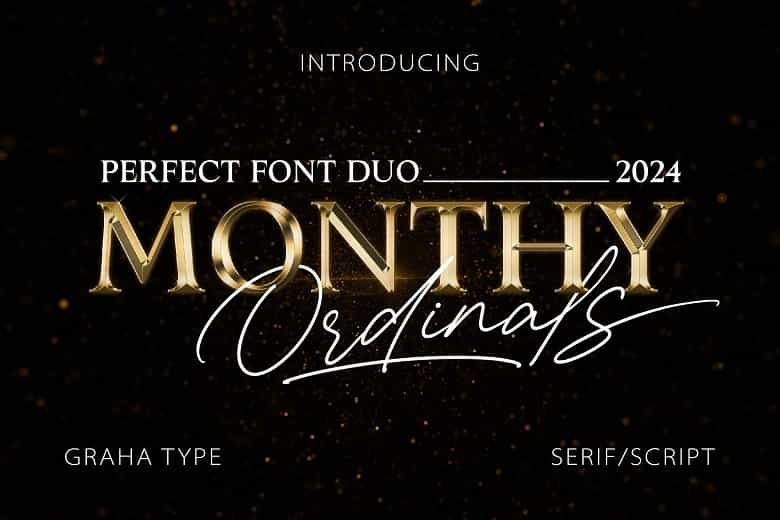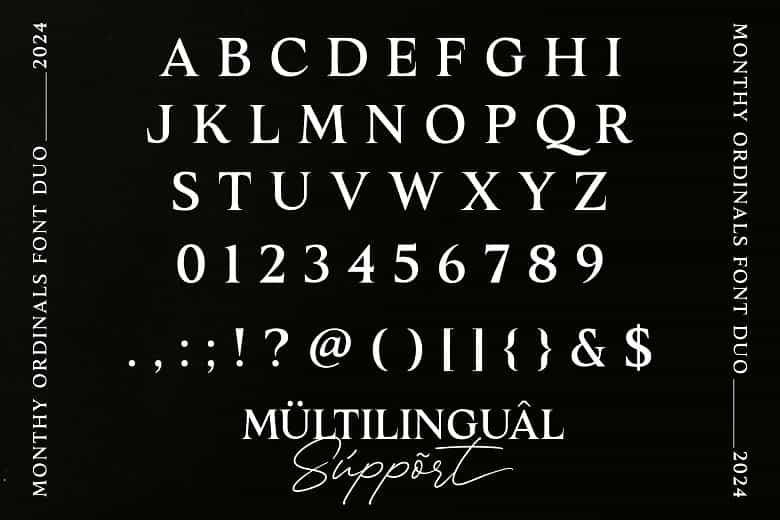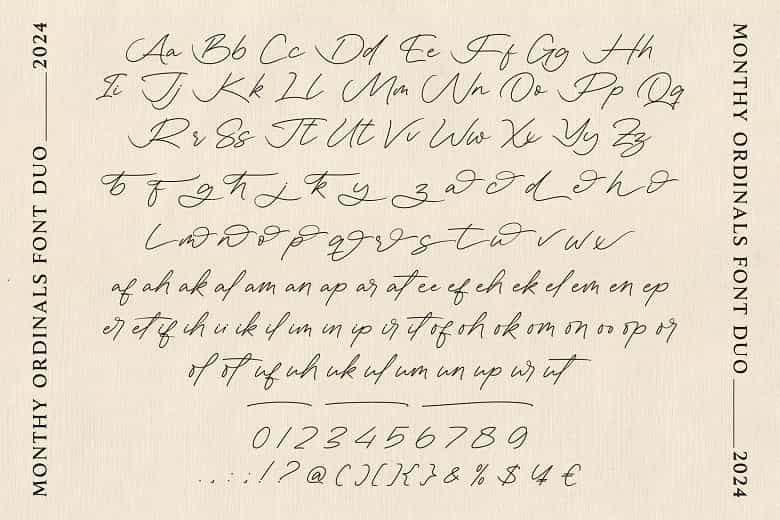
Monthy Ordinals Font Duo
Discover Monthy Ordinals Font Duo, part of the   Handwritten  Serif collection—a versatile and unique font perfect for adding a personal touch to your projects. Download it for free and enjoy crafting designs with style, from invitations to social media posts. This font is available exclusively for personal use, giving you the freedom to create without limits. Unlock your creativity with Monthy Ordinals Font Duo today!
Monthy Ordinals is a splendid script and serif fonts duo that can be used for any project. It is best to be used in posters, magazines, logos, merchandise, social media platforms, and branding. It can improve visual communicative features and corporate styles and identities in various design situations.